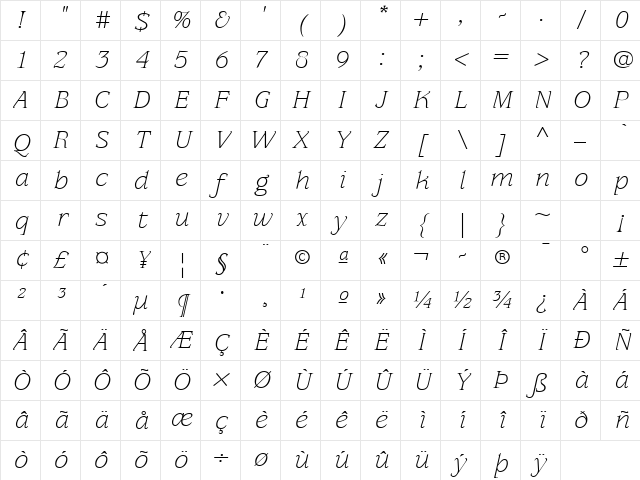
Complete AIAlign Italic glyph index. Displaying only characters natively supported by AIAlign Italic font.
AIAlign is a composed and adaptable typeface that performs quietly and consistently across a wide range of design contexts. The slanted form adds forward momentum and visual energy.
Pro Tip: Use AIAlign for emphasis, pull quotes, and subheadings where its slanted energy can add rhythm to the layout.